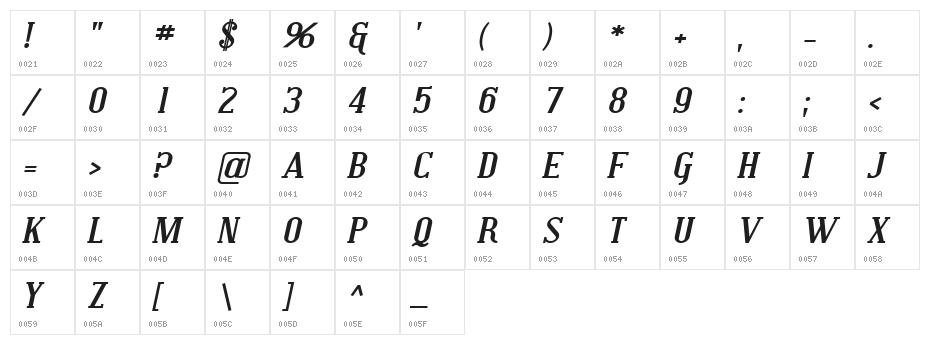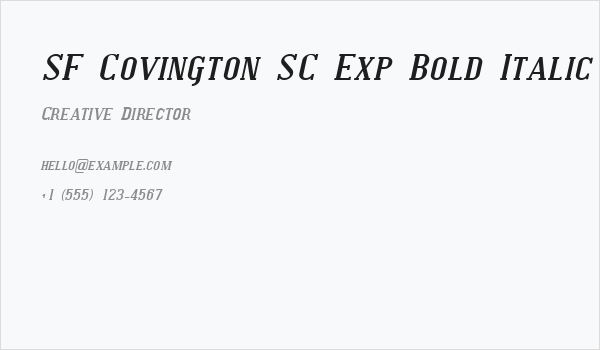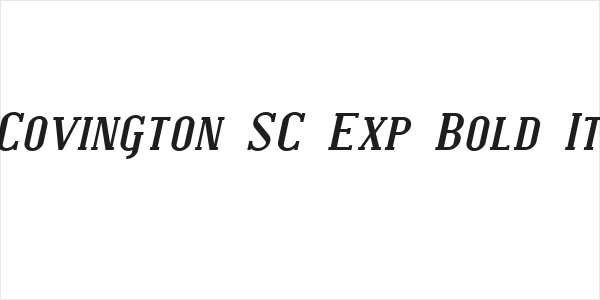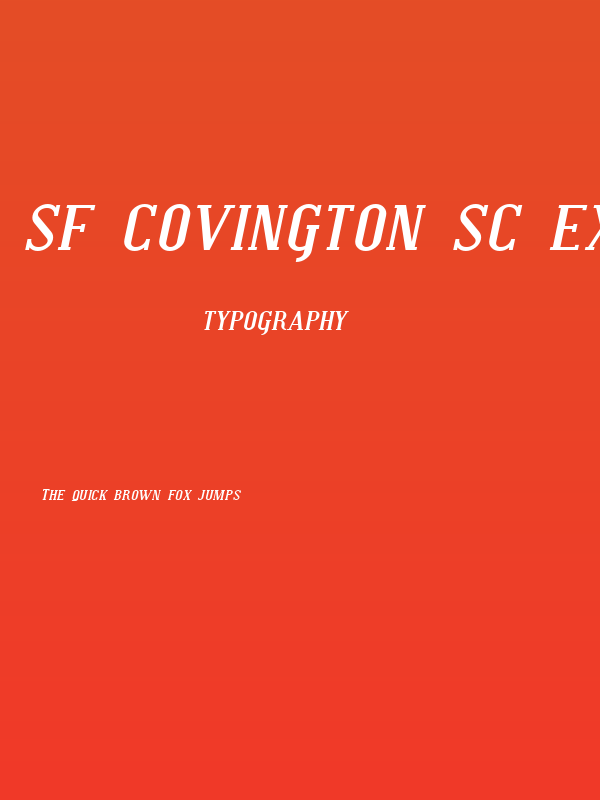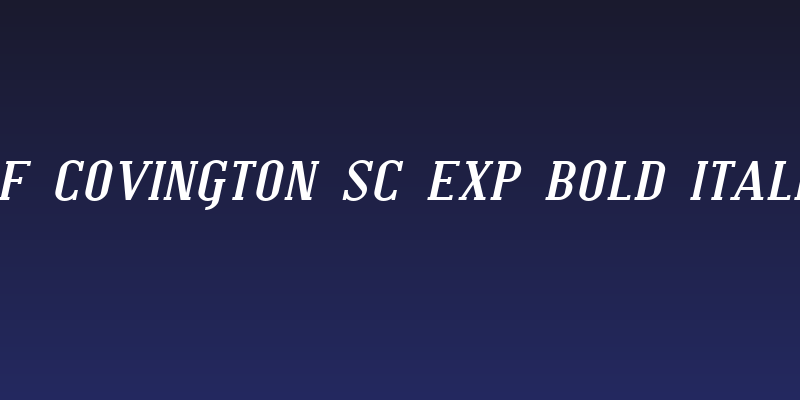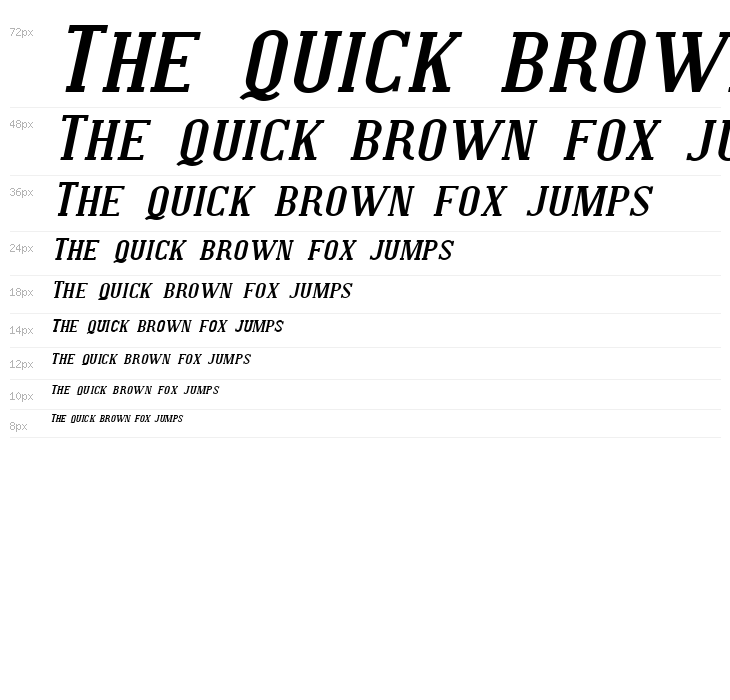
SF Covington SC Exp Bold Italic Font
SF Covington SC Exp Bold Italic Description
This font exhibits a bold and italicized style with a strong presence, characterized by its expanded width and high contrast between thick and thin strokes. The serifs are pronounced, adding a classic touch to the overall modern aesthetic. The uppercase letters are tall and commanding, while the lowercase letters maintain a consistent flow, enhancing readability. Numbers are clear and distinct, making them suitable for various applications. The special characters are well-integrated, maintaining the font's cohesive look. This typeface is ideal for projects that require a bold statement, combining elegance with a contemporary edge.